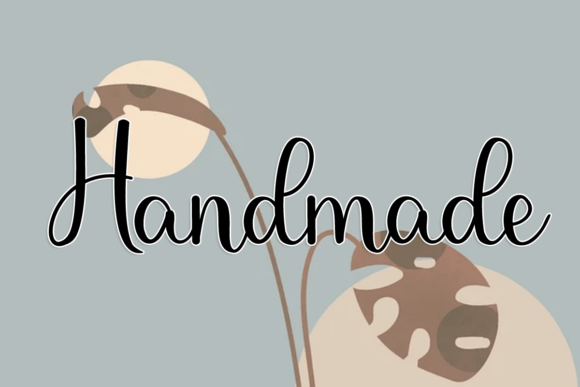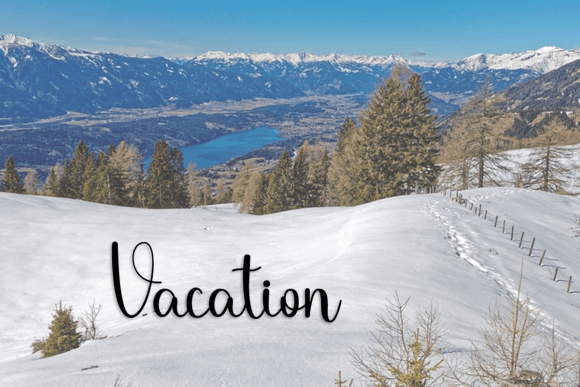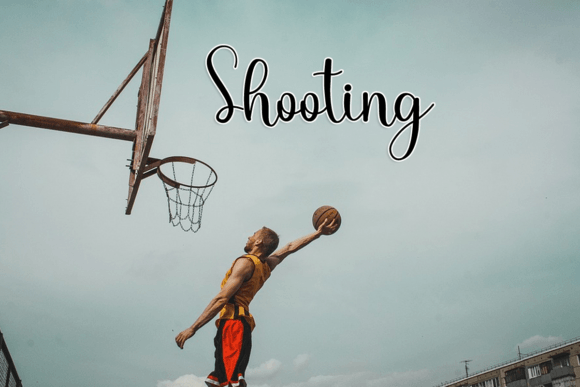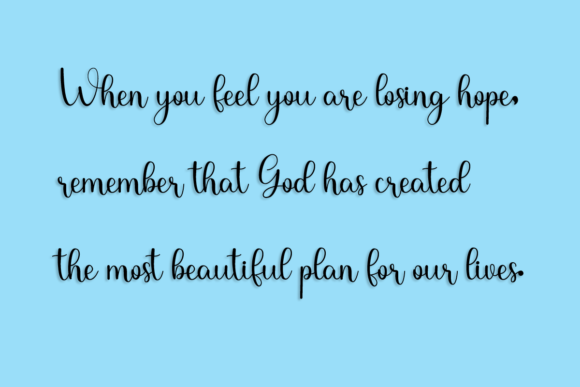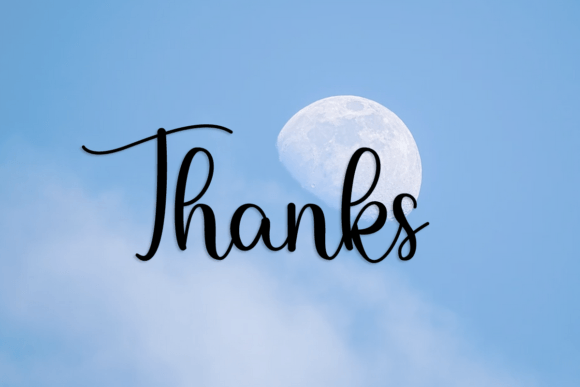
Aldina Font: The Sweet and Friendly Handwritten Font for Your Creative Projects
Are you a designer or crafter looking for a font that can add a personal touch to your work? Look no further than Aldina Font, a sweet and friendly handwritten font that’s perfect for creating beautiful and eye-catching designs. In this article, we’ll take a closer look at Aldina Font, its features, and how you can use it to elevate your creative projects.
What is Aldina Font?
Aldina Font is a handwritten font that’s designed to be fun and relaxed. It’s the perfect choice for anyone who wants to add a touch of warmth and personality to their designs. Whether you’re creating wedding invitations, greeting cards, or any other type of design that needs a personal touch, Aldina Font is an excellent choice.
Features of Aldina Font
Aldina Font has several features that make it a great choice for designers and crafters. Some of its key features include:
- Sweet and Friendly Design: Aldina Font has a sweet and friendly design that’s perfect for creating designs that need a personal touch.
- Handwritten Style: The font has a handwritten style that’s fun and relaxed, making it perfect for creating designs that need a personal touch.
- Easy to Read: Aldina Font is easy to read, making it perfect for creating designs that need to be clear and concise.
- Versatile: The font is versatile and can be used for a wide range of design projects, from wedding invitations to greeting cards.
Uses of Aldina Font
Aldina Font is a versatile font that can be used for a wide range of design projects. Some of the most popular uses of Aldina Font include:
- Wedding Invitations: Aldina Font is perfect for creating beautiful and elegant wedding invitations that set the tone for the big day.
- Greeting Cards: The font is great for creating greeting cards for special occasions, such as birthdays, anniversaries, and holidays.
- Stationery: Aldina Font can be used to create beautiful and personalized stationery, such as letterheads and notebooks.
- Social Media Graphics: The font can be used to create eye-catching social media graphics, such as Facebook posts and Instagram stories.
Tips for Using Aldina Font
Here are some tips for using Aldina Font in your design projects:
- Use it with a Personal Touch: Aldina Font is all about adding a personal touch to your designs. Use it to create designs that are unique and personalized.
- Pair it with Other Fonts: Aldina Font can be paired with other fonts to create a unique and eye-catching design.
- Experiment with Colors: The font looks great in a variety of colors, so don’t be afraid to experiment and find the perfect color for your design.
Aldina Font is a sweet and friendly handwritten font that’s perfect for designers and crafters who want to add a personal touch to their work. With its fun and relaxed design, Aldina Font is ideal for creating beautiful and eye-catching designs, from wedding invitations to greeting cards. Whether you’re a professional designer or a crafter, Aldina Font is a great choice for any design project.
So, if you’re looking for a font that can add a touch of warmth and personality to your designs, look no further than Aldina Font. With its versatility, ease of use, and sweet and friendly design, Aldina Font is the perfect choice for any creative project.